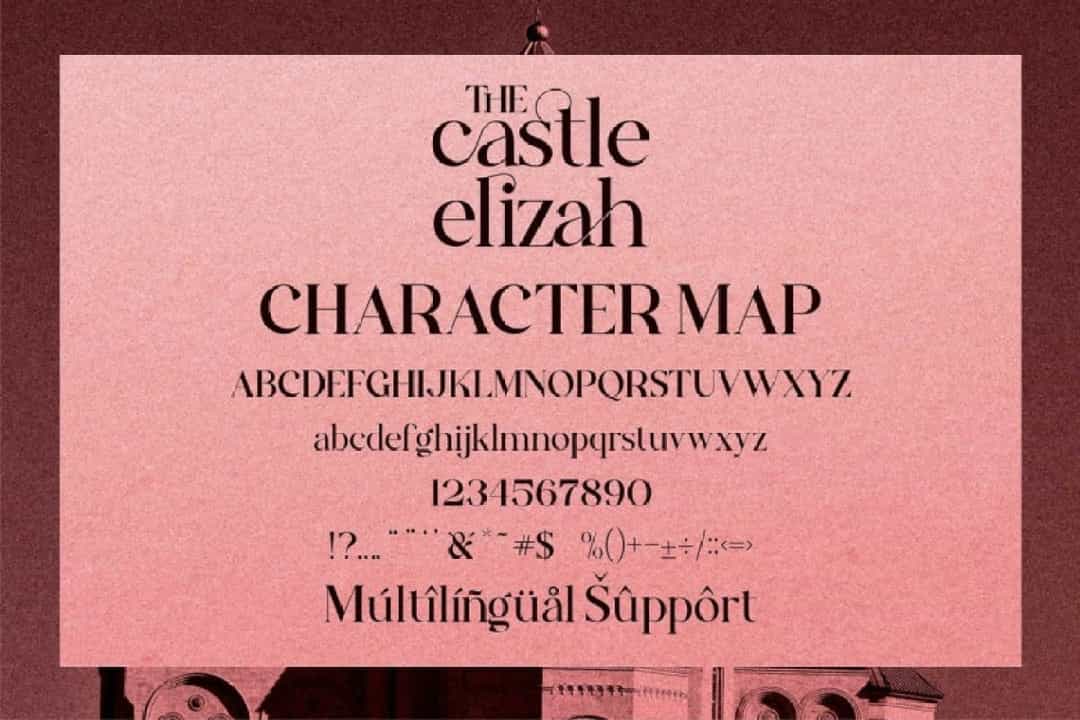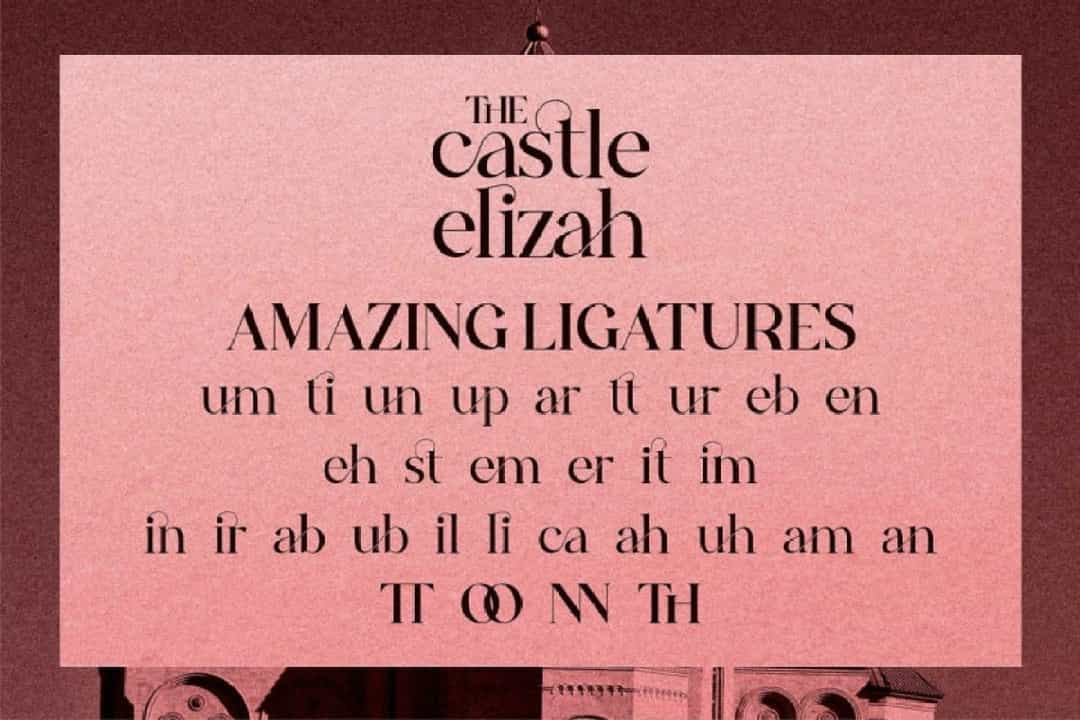
Discover The Castle Elizah Font, part of the Serif Retro Basic Personal collection—a versatile and unique font perfect for adding a personal touch to your projects. Download it for free and enjoy crafting designs with style, from invitations to social media posts. This font is available exclusively for personal use, giving you the freedom to create without limits. Unlock your creativity with The Castle Elizah Font today!
Letterena’s Castle Elizah Font – Luxurious and Beautiful Serif Font is a beautiful and classic serif font which would be perfect for logo designs, branding concepts, packaging designs for home items including mugs or posters or quotes or bags with quotes on them, t-shirts with quotes on them, books with quotes on them, name cards, greeting cards, invitation cards, labels, watermarks for photos or any other project where a elegant and stylish font is required.